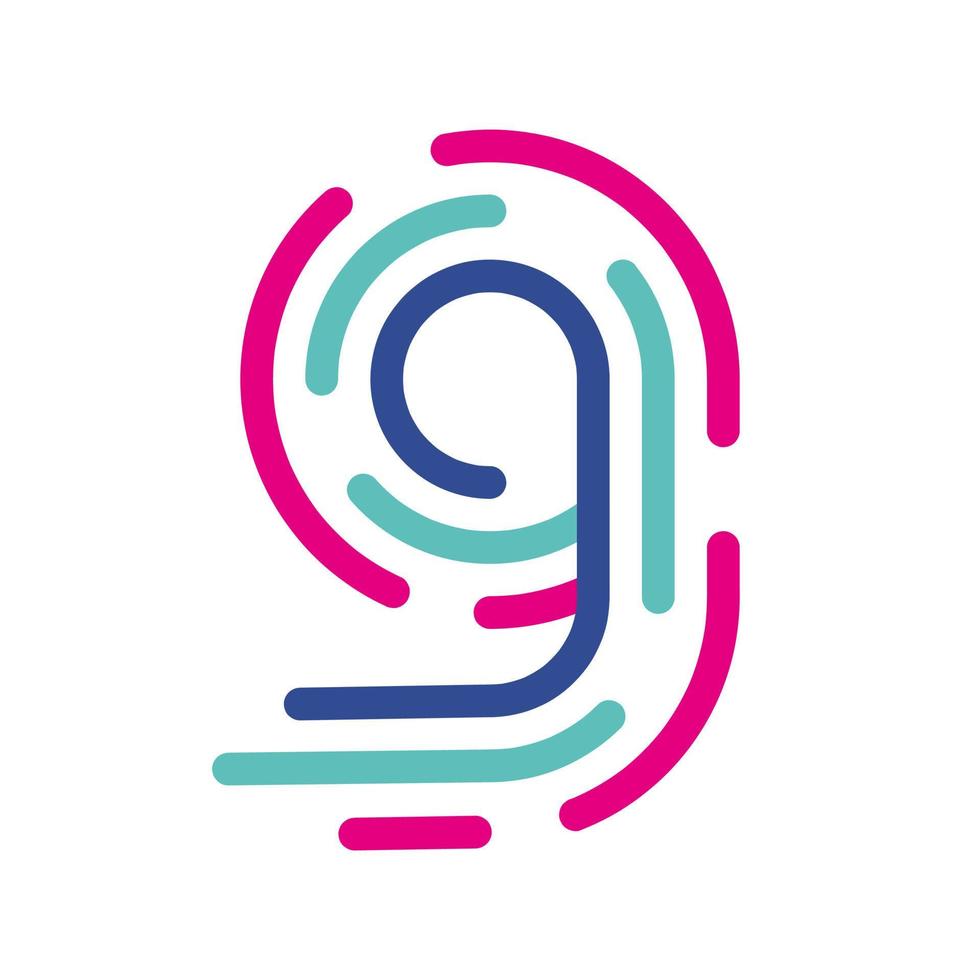
Abstract number 9 Line Colorful logo-icon. Modern numeral lines with new pop art colors. Font one number template. Set logo thin line clean style. white background. Pro Vector